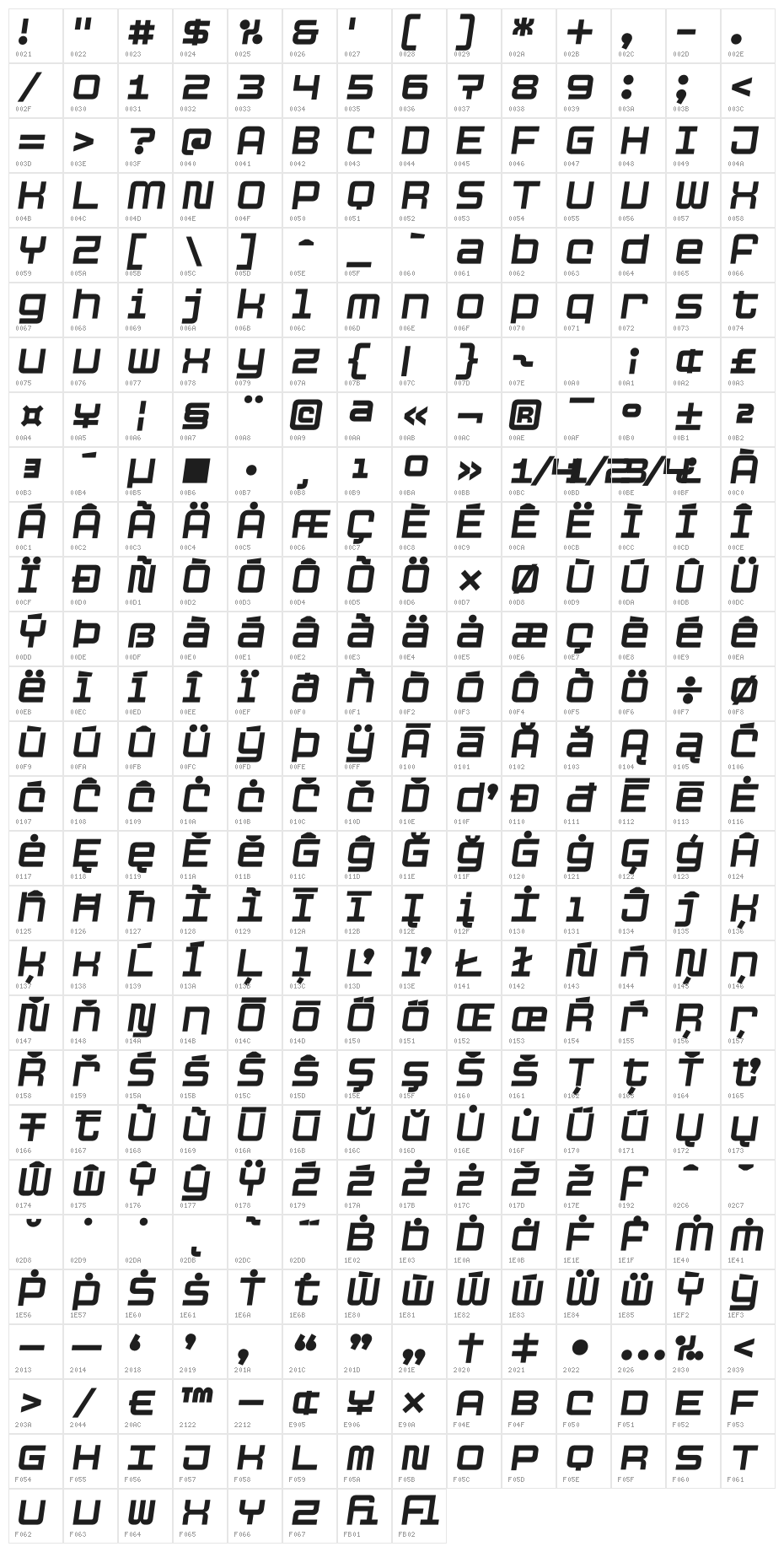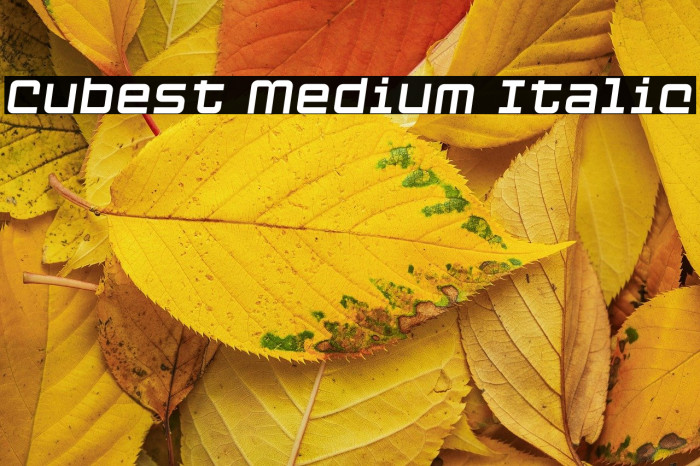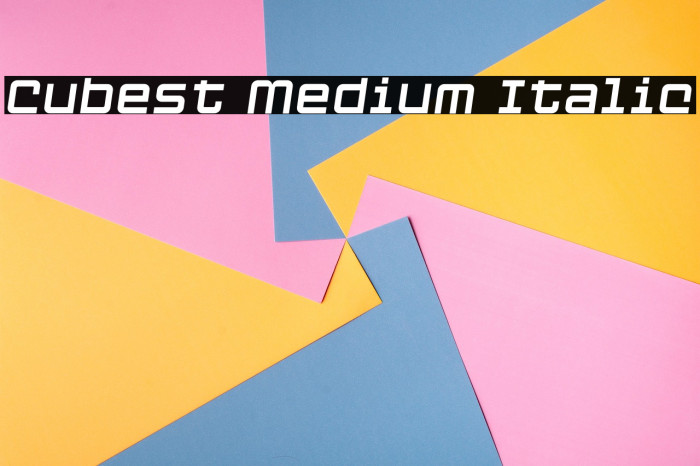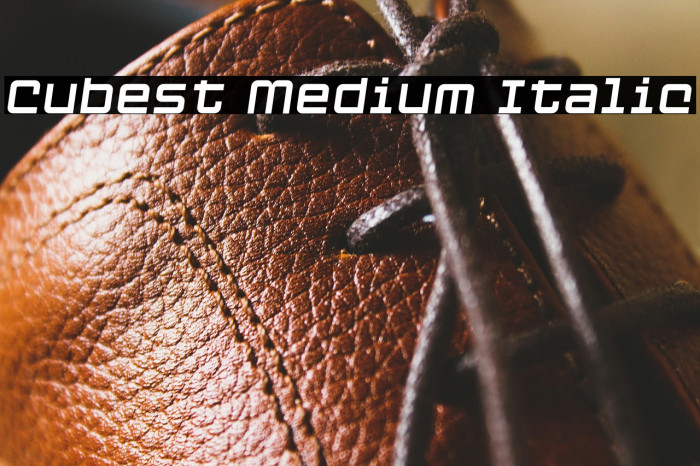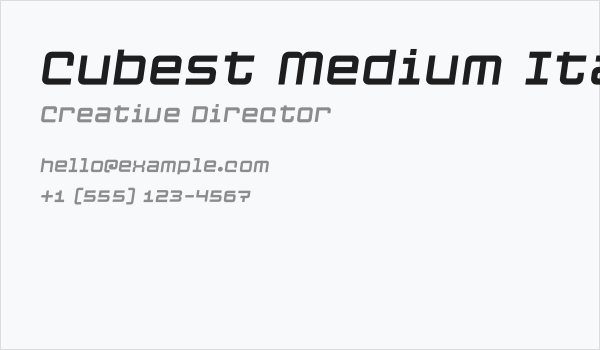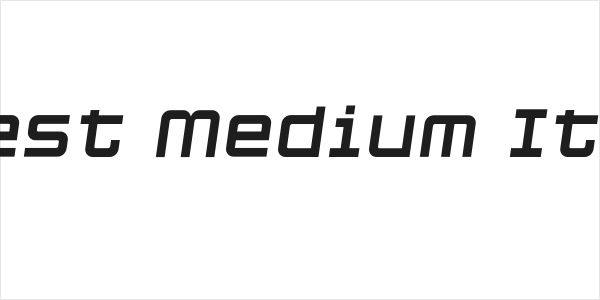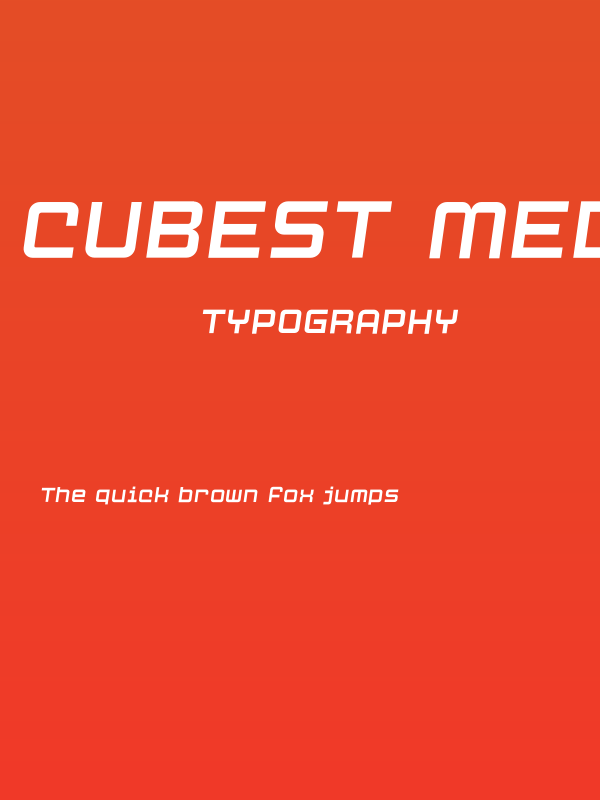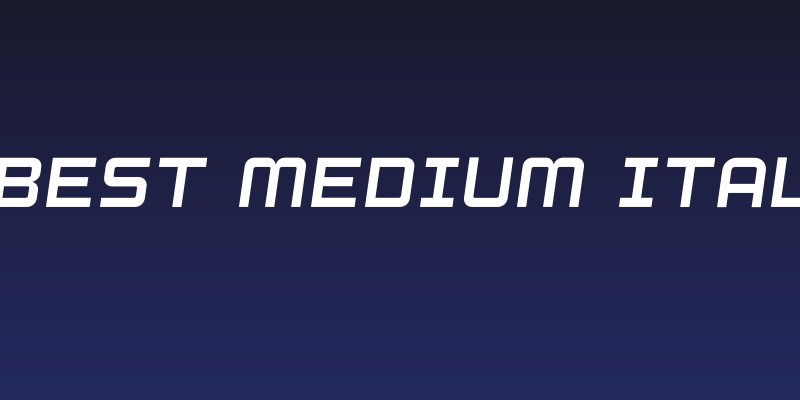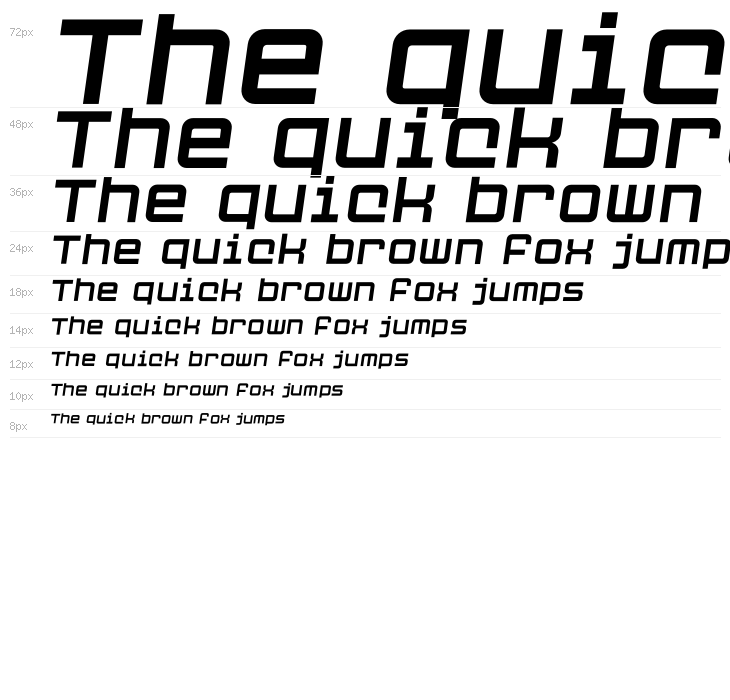
Cubest Medium Italic Font
Cubest Medium Italic Description
This font exhibits a modern and geometric style with a distinct italic slant, giving it a dynamic and forward-moving appearance. The characters are constructed with clean, straight lines and rounded corners, creating a harmonious blend of sharpness and softness. The uppercase letters maintain a uniform height, while the lowercase letters are slightly shorter, enhancing readability. The numerals are consistent with the overall design, ensuring clarity and balance. Special characters are well-integrated, maintaining the font's cohesive look. This typeface is versatile, suitable for both digital and print media.